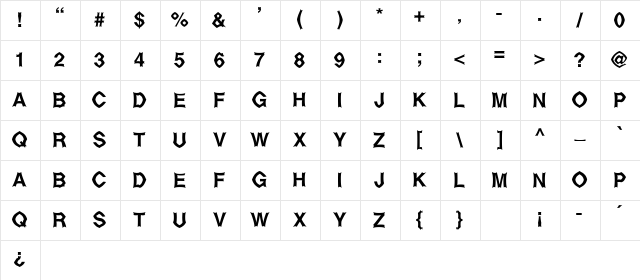
Metal-Up-Your-Ear Regular
Design Context for Metal-Up-Your-Ear Typeface
Metal-Up-Your-Ear takes a measured approach to typography — its balanced proportions and neutral character make it a reliable workhorse for both digital and print work.
Pro Tip: Pair Metal-Up-Your-Ear with a font of contrasting weight or personality to build a more expressive typographic hierarchy.